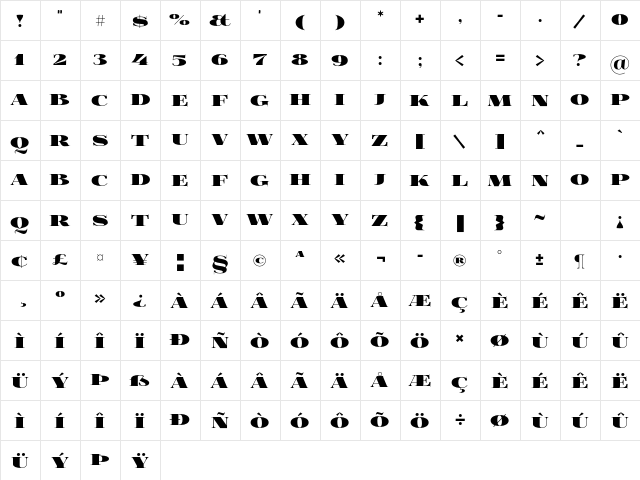
FoglihtenBlackPcs BlackPcs
Design Context for FoglihtenBlackPcs Typeface
FoglihtenBlackPcs is a composed and adaptable typeface that performs quietly and consistently across a wide range of design contexts.